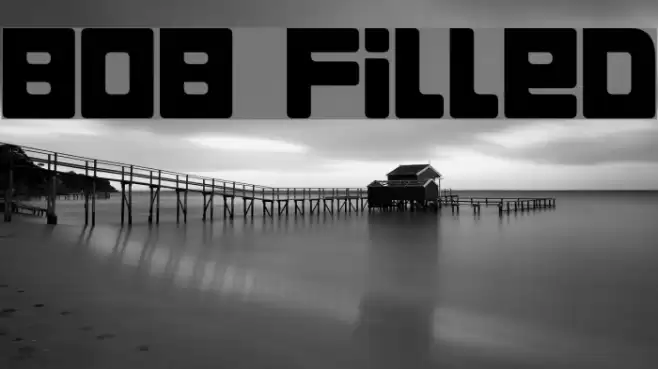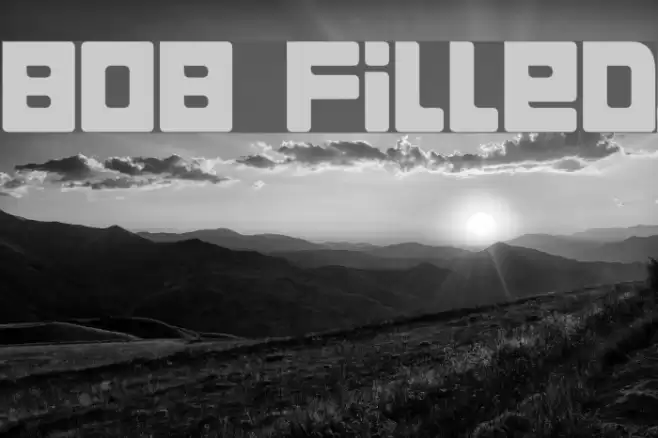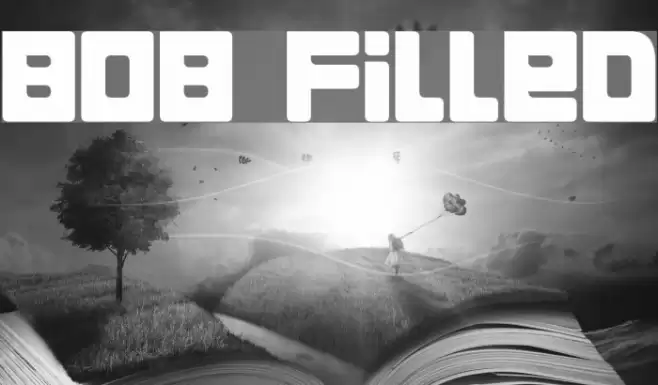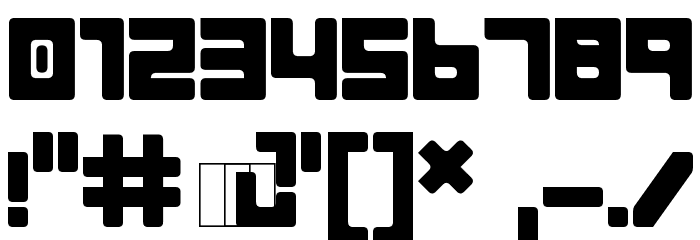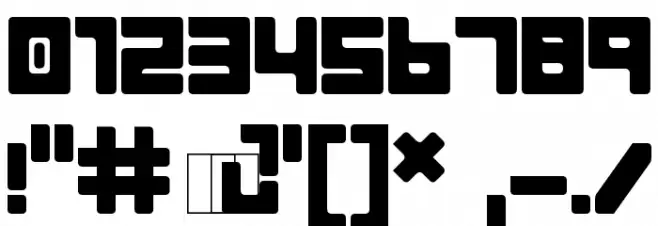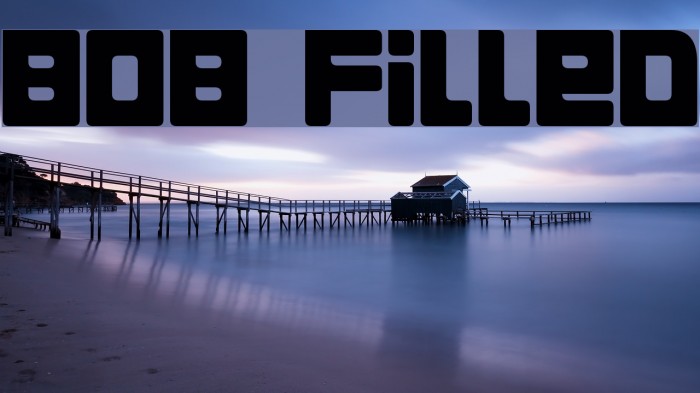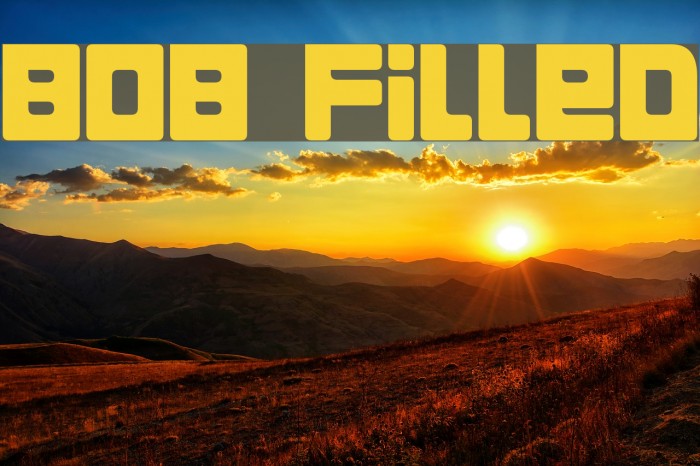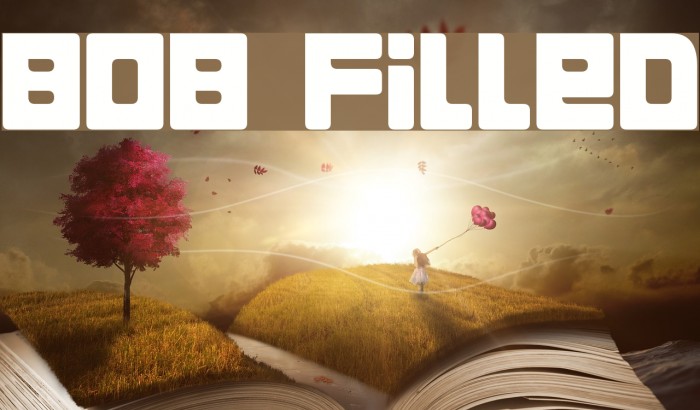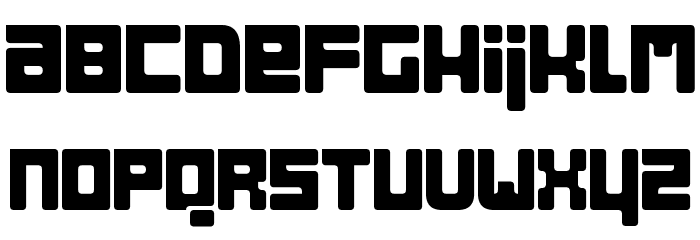
Bob Filled Font
Bob Filled Description
This font features a bold, geometric design with a strong presence. Each character is constructed with thick, uniform strokes, creating a sense of solidity and impact. The letters are blocky and square-shaped, with rounded corners that soften the overall appearance. This style is consistent across uppercase, lowercase, numbers, and special characters, ensuring a cohesive look. The font's heavy weight and uniformity make it ideal for attention-grabbing headlines or display purposes. Its modern and slightly futuristic aesthetic can add a contemporary edge to any project.
A bold, geometric font with blocky, rounded characters from Uncategorized fonts.
- Proposed Projects: Ideal for posters, logos, branding, and any design requiring a strong visual impact.